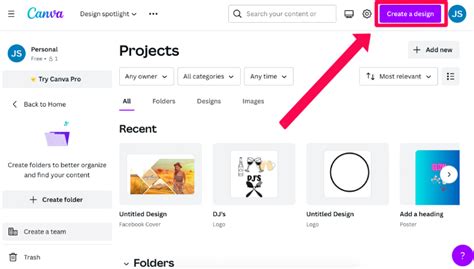
How To Add Fonts In Canva
Adding New Fonts to Canva: A Designer’s Best Friend
What’s up, design lovers! Ever felt like Canva’s font library, while vast, sometimes just doesn’t have that perfect typeface for your project? You know the one – that unique font that will make your design pop and truly stand out from the crowd. Well, good news, guys! You can absolutely add your own fonts to Canva, and it’s way easier than you might think. This means you’re no longer limited to what Canva offers; you can bring in your treasured collection of fonts, from obscure vintage finds to sleek, modern sans-serifs, and integrate them seamlessly into your designs. Think of it as unlocking a whole new universe of typographic possibilities. This capability is a game-changer, especially for brands with a specific visual identity or designers who have a signature style that relies on particular fonts. It empowers you to maintain consistency across all your branding materials, whether you’re creating social media graphics, presentations, websites, or even printed materials. No more settling for ‘close enough’; you can now use exactly the font you envision. We’ll dive deep into how this process works, covering everything you need to know to become a font-adding pro in Canva. Get ready to elevate your design game, because adding custom fonts is a fundamental skill that will significantly enhance your creative workflow and the overall impact of your visual creations. It’s all about giving you the freedom and flexibility to express your unique design vision without limitations. So, let’s get started and explore the magical world of custom fonts in Canva!
Uploading Your Own Fonts: The Step-by-Step Guide
Alright, let’s get down to business, shall we? Uploading your own fonts into Canva is a straightforward process, but it’s crucial to follow the steps correctly to ensure everything works smoothly. First things first, make sure you have the rights to use the font you intend to upload . This is super important, guys. You don’t want to run into any legal trouble by using fonts you don’t have the proper licenses for. Once you’ve confirmed your font rights, you’ll need to have your font files ready. Canva accepts several file types, including TrueType (.ttf), OpenType (.otf), and TrueType Collections (.ttc) . If your font is in a different format, you might need to convert it first. Now, head over to Canva and navigate to your brand kit. If you don’t have a brand kit yet, you can create one easily. Within your brand kit, look for the ‘Text’ or ‘Fonts’ section. You should see an option that says ‘Upload a font’ or something similar. Click on that button! A file explorer window will pop up, allowing you to browse your computer for the font file you want to upload. Select your font file and click ‘Open’. Canva will then process the font. Depending on the file size and your internet connection, this might take a few seconds. Once uploaded, your font will appear in the list of available fonts within your brand kit. You can then access and use it in any of your designs! How cool is that? It’s like giving Canva a personalized upgrade tailored just for you. Remember, this feature is available for Canva Pro, Canva for Teams, and Canva for Education accounts. If you’re on the free plan, you’ll need to upgrade to unlock this powerful feature. But honestly, for the flexibility it offers, it’s totally worth considering if you’re serious about your design projects. We’re talking about a whole new level of creative control right at your fingertips, empowering you to bring your most ambitious design ideas to life with absolute precision and flair. So, get those fonts ready and let’s make some magic happen!
Accessing and Using Your Uploaded Fonts in Designs
So, you’ve successfully uploaded your custom font – high five! Now, the million-dollar question is: how do you actually find and use it in your Canva designs? It’s super simple, I promise! Once your font is uploaded into your brand kit (remember, that’s the place to be for all things custom!), it becomes available across all your Canva projects. When you’re working on a design and want to add some text, just click the ‘Text’ tab on the left-hand side panel, or select an existing text box. In the text editing toolbar that appears at the top of the editor, you’ll see the font selection dropdown menu. Click on this menu. Now, here’s the magic: scroll down through the list of available fonts. You’ll find your uploaded fonts listed under a dedicated section, often labeled ‘Uploaded Fonts’ or something similar, usually located at the very top or bottom of the font list for easy access. It’s like having your own VIP section for your favorite typefaces! Just click on your chosen font, and voilà! It will be applied to your text. You can then style it just like any other font – change the size, color, spacing, and so on. The beauty of having your fonts in your brand kit is that they are persistent. They’ll be there waiting for you every time you open Canva, ensuring your brand’s typographic consistency without the hassle of re-uploading. This makes creating a cohesive visual identity across all your marketing materials incredibly efficient. No more hunting for that specific font file every time you start a new project! It’s all streamlined and ready to go, making your design process smoother and your final output more professional. So go ahead, experiment, and enjoy the power of having your personal font library at your fingertips!
Troubleshooting Common Font Upload Issues
Even with the best intentions, sometimes things don’t go exactly as planned when uploading fonts, right? Don’t worry, guys, we’ve all been there! Let’s tackle some of the most common hiccups and how to sort them out. One frequent issue is trying to upload a font file that isn’t supported. As we discussed, Canva primarily likes .ttf, .otf, and .ttc files. If you get an error message saying the file type is unsupported, it means you need to convert your font to one of these formats using an online converter. Double-check the converter’s output to ensure it’s a compatible type. Another common problem is uploading a font with incorrect licensing. Canva is pretty strict about this to protect both users and font creators. If your font isn’t licensed for upload or commercial use, Canva might reject it or flag it. Always, always confirm you have the appropriate rights before uploading. If you suspect a licensing issue, you may need to acquire a different license or choose another font. Corrupted font files can also cause upload failures. This is rare, but it can happen. Try re-downloading the font file from its original source or try a different font file if you have multiple versions. Sometimes, simply clearing your browser’s cache and cookies can resolve upload glitches. Websites, including Canva, sometimes store old data that can interfere with new processes. Try a hard refresh (Ctrl+Shift+R or Cmd+Shift+R) or clear your cache and try uploading again. Lastly, ensure you are using a Canva Pro, Teams, or Education account. As mentioned, font uploading is a premium feature. If you’re on the free plan, the upload option simply won’t be available. If you’ve tried all these steps and are still facing issues, reaching out to Canva’s support team is your best bet. They’re super helpful and can often provide specific guidance for your situation. Tackling these issues head-on will ensure your font uploading experience is as smooth as possible!
Canva Font Alternatives and Workarounds
While uploading your own fonts is a fantastic way to customize your designs, what if you’re on the free Canva plan, or maybe you just want to explore other avenues? No worries, guys, there are still plenty of ways to get creative with typography in Canva! First off, Canva’s built-in font library is seriously impressive. They have thousands of fonts across various styles – serif, sans-serif, script, display, and more. Spend some time browsing; you might be surprised by the gems you find that perfectly fit your project’s needs. Use the search function effectively by typing in keywords related to the style you want (e.g., ‘modern’, ‘elegant’, ‘bold’, ‘handwritten’). Another great strategy is to combine Canva’s fonts with graphic elements. Sometimes, a standard font can look unique when paired with a cool background, a textured overlay, or a custom shape. Play around with font effects like shadows, outlines, or letter spacing to give a basic font a distinctive feel. Consider using Canva’s brand kit for consistency even without uploads. While you can’t upload custom fonts on the free plan, you can still designate your favorite Canva fonts within your brand kit. This ensures that when you create multiple designs, you’re sticking to a consistent typographic theme, which is crucial for branding. For truly unique lettering, you can try creating text elements outside of Canva and importing them as images. For example, you could use a desktop application like Adobe Illustrator or even a free tool like Inkscape to type out your text, customize it extensively (think distortions, custom ligatures, etc.), and then save it as a PNG or JPG file. You can then upload this image into Canva and place it in your design. It’s a bit more work, but it offers ultimate control over the look of specific text elements. Lastly, don’t forget the power of font pairings . Sometimes, the magic isn’t in a single font but in how two or more fonts complement each other. Experiment with pairing a bold headline font with a simple, readable body font. Canva often suggests pairings, or you can find inspiration online. These workarounds ensure that even without custom uploads, your designs can still boast unique and eye-catching typography. It’s all about smart usage and creative thinking!
Leveraging Canva’s Extensive Font Library
Let’s talk about the powerhouse that is Canva’s built-in font library . Seriously, guys, it’s massive and often overlooked by people who are laser-focused on uploading their own. Before you even consider the upload route, it’s worth diving deep into what Canva already offers. They have curated a phenomenal collection of fonts that cater to almost every aesthetic imaginable. Need something classic and elegant for a wedding invitation? They’ve got you covered. Looking for something edgy and modern for a tech startup’s branding? Yep, it’s there. How about quirky and fun for a kid’s party flyer? You betcha! The key is to know how to navigate this treasure trove. Use the search bar effectively. Instead of just scrolling aimlessly, type in descriptive keywords. Think about the mood or style you want: ‘playful’, ‘minimalist’, ‘vintage’, ‘corporate’, ‘handwritten’, ‘calligraphy’, ‘bold’, ‘thin’, ‘geometric’. You’ll be amazed at the results. Explore font categories. Canva often organizes fonts, making it easier to discover new ones within a specific style. Don’t shy away from the ‘Display’ fonts; these are often designed for impact and can make your headlines sing. Pay attention to font pairings. Canva sometimes suggests complementary fonts, which can be a great starting point for creating a harmonious typographic hierarchy in your designs. Even if you don’t upload custom fonts, you can still create a strong brand identity by consistently using 2-3 carefully chosen fonts from Canva’s library. Set these favorites in your brand kit (even on the free plan!) to ensure easy access and consistent application across all your projects. It’s all about maximizing the tools you have available. So, give Canva’s library a thorough exploration – you might just find your new favorite font hiding in plain sight!
Creative Text Effects and Image Integration
Want to make your text really stand out, even if you’re sticking with Canva’s included fonts? Let’s dive into some creative text effects and image integration tricks, guys! Canva offers a surprising amount of flexibility here. First, let’s talk effects. When you click on a text box, you’ll see a toolbar pop up. Look for the ‘Effects’ button. This opens a panel where you can add shadows , lift effects (which create a subtle shadow behind the text), outlines , echoes , and glitches . You can adjust the intensity, direction, and color of these effects to give your text a unique dimension. Don’t underestimate the power of letter spacing (kerning) and line spacing (leading) . Sometimes, just slightly adjusting these can dramatically change the feel of your text, making it more modern, airy, or impactful. Now, for image integration – this is where things get really fun. You can use photos as text backgrounds ! Type your text, make it large and bold. Then, find a photo you love, place it behind your text layer, and crop it so it fits within the text shape. You might need to adjust transparency or add a slight color overlay to ensure readability. Another cool trick is creating text cutouts within images . Place your image, then place a solid color text box (the color of your background) over it. Use the ‘Transparency’ slider to make the text box see-through, effectively